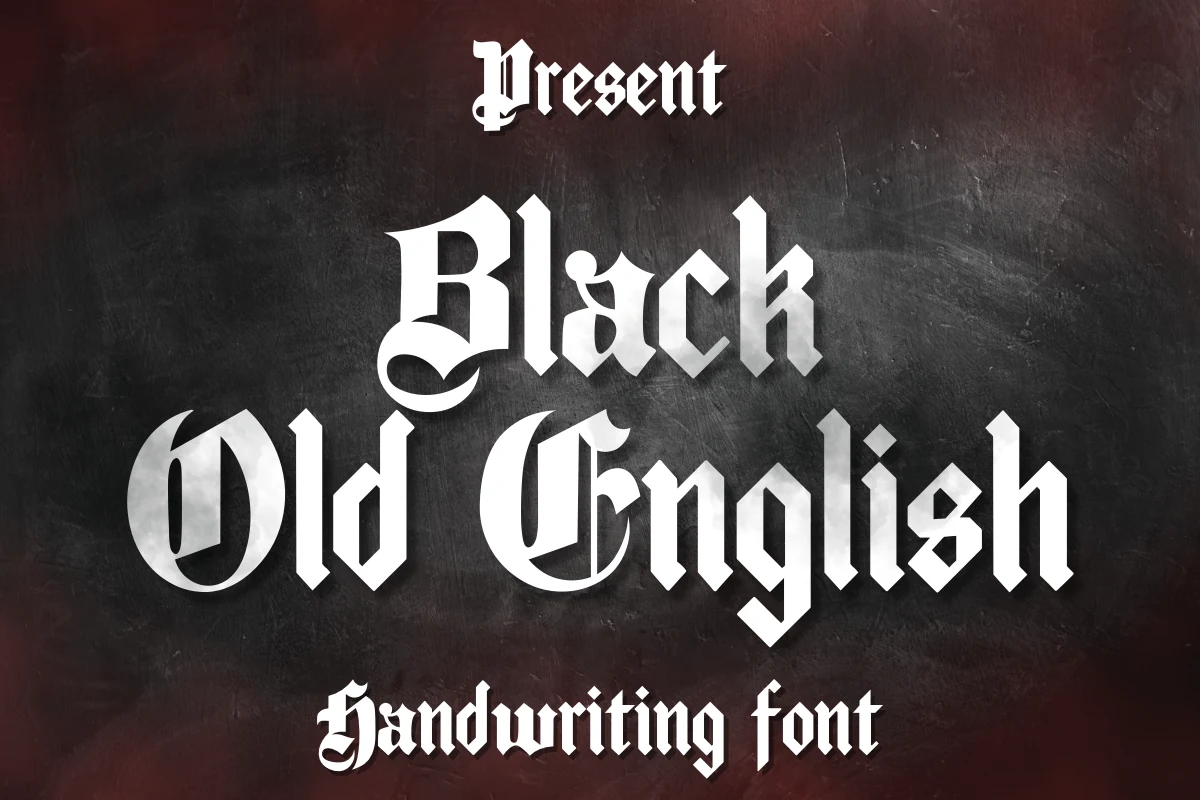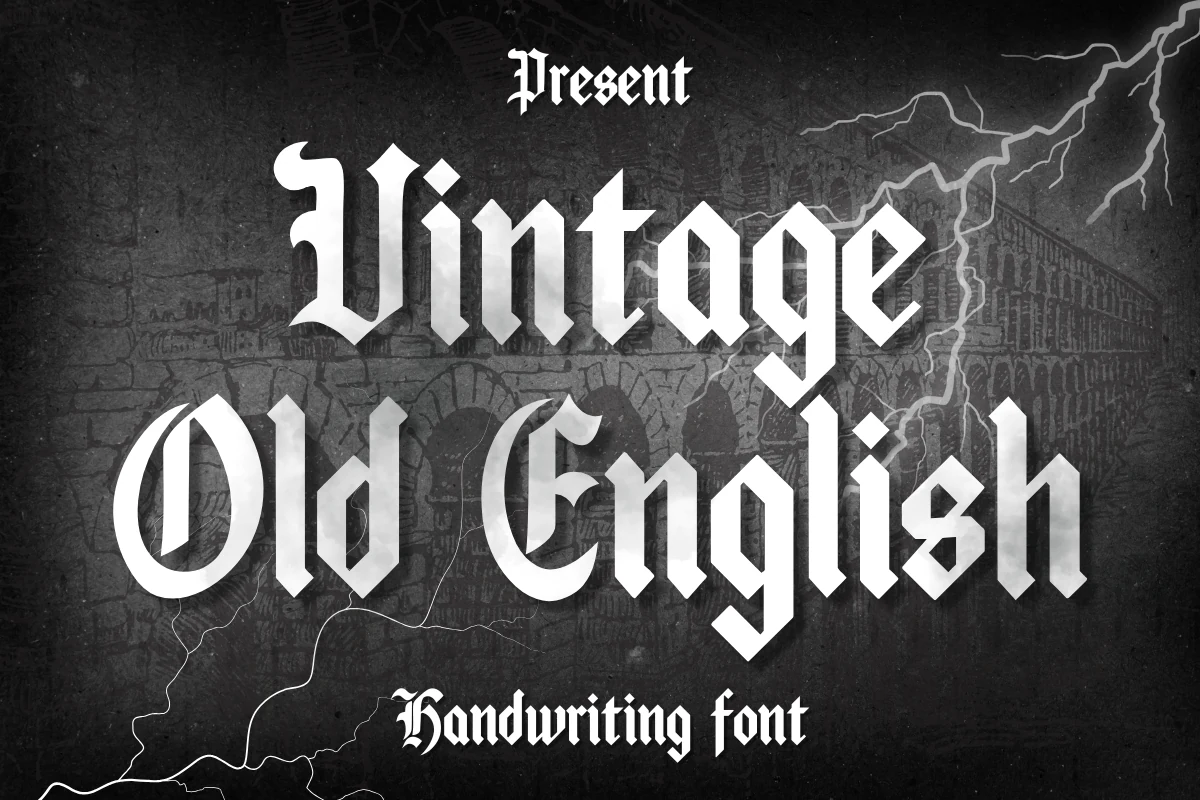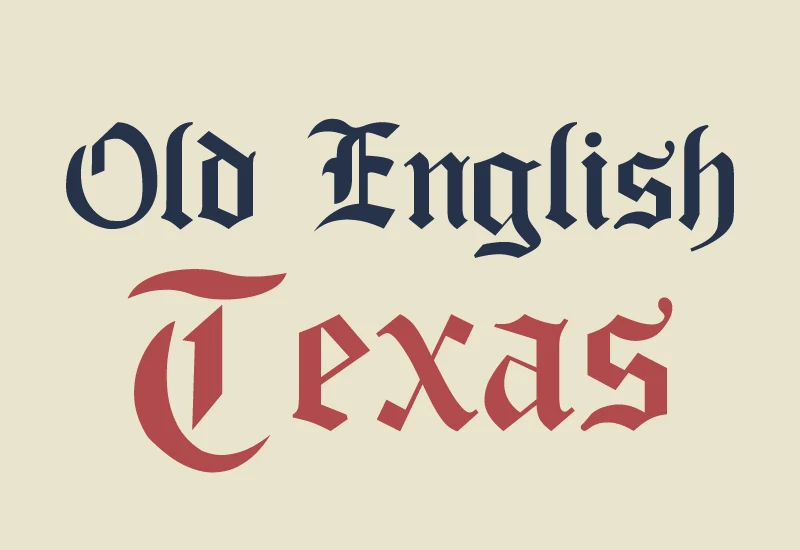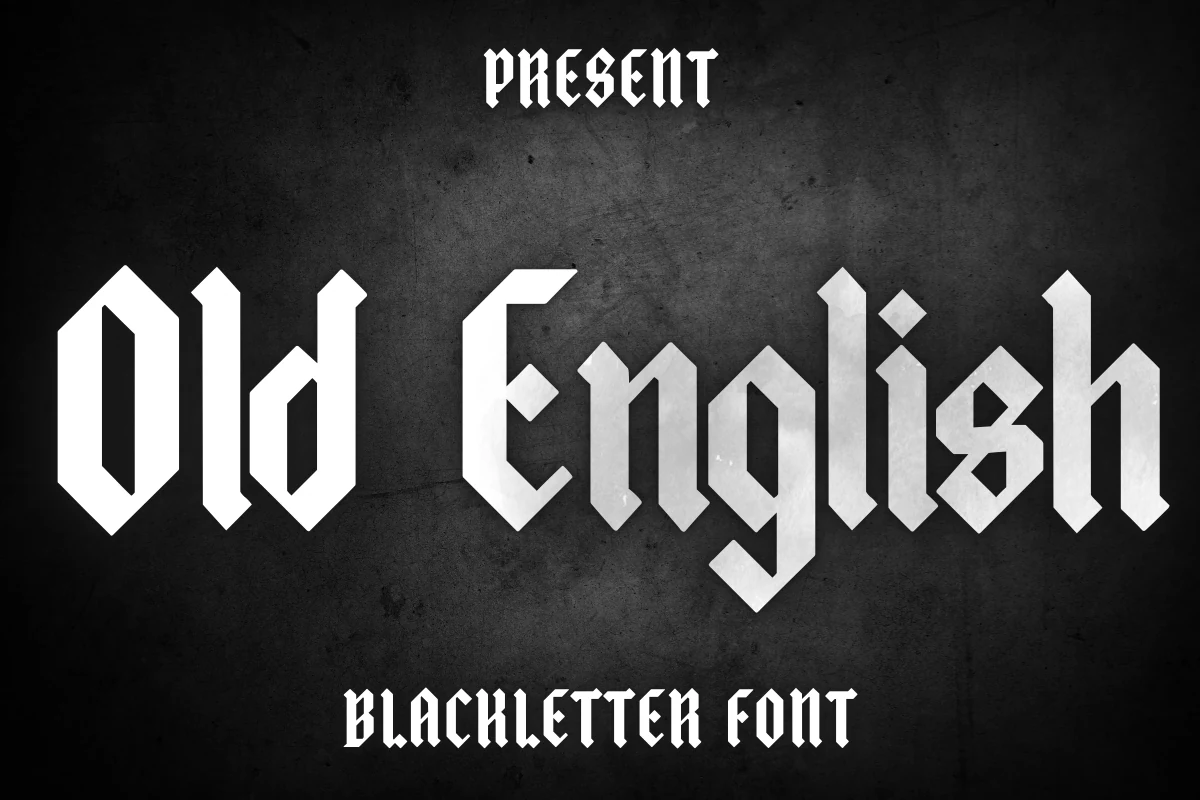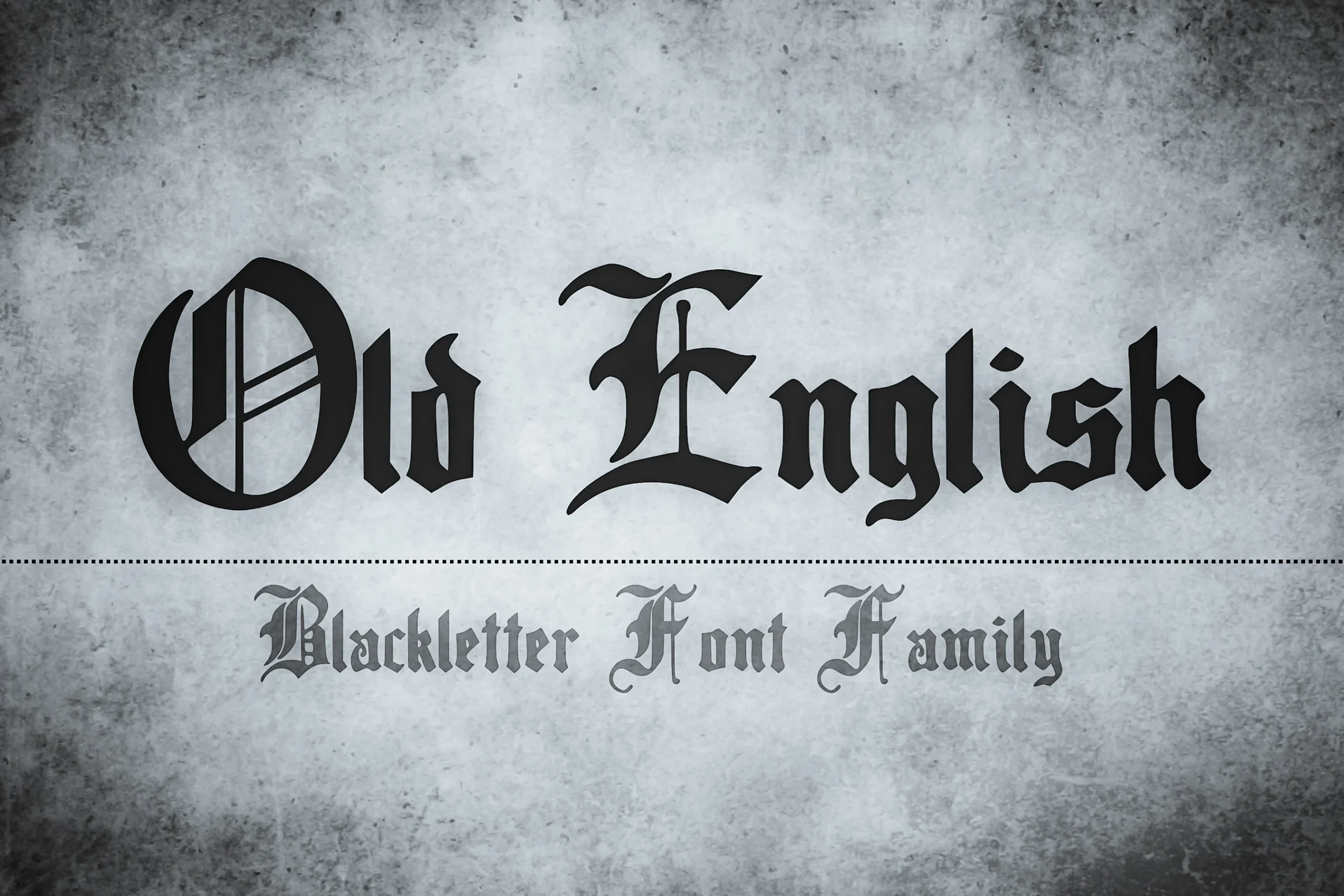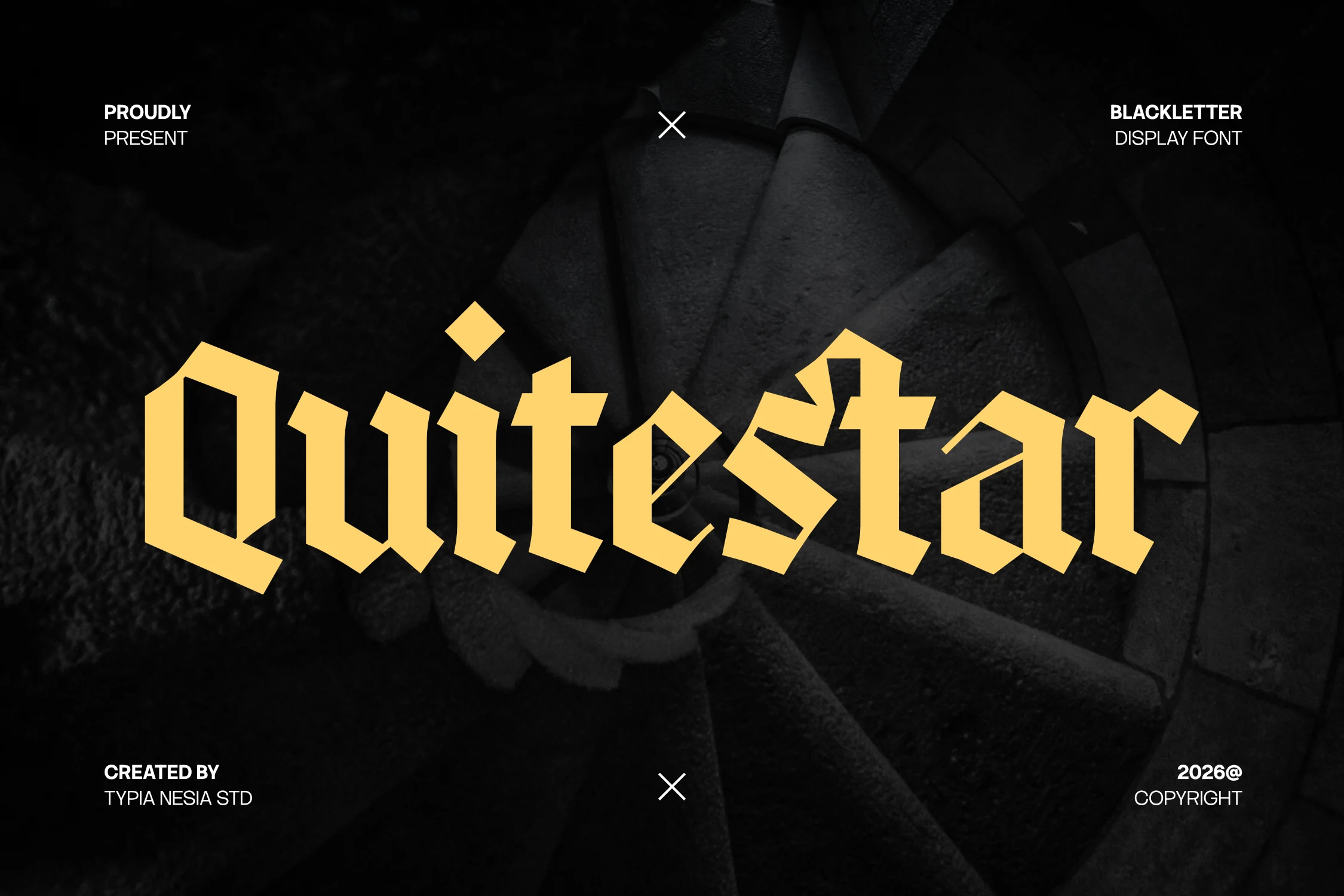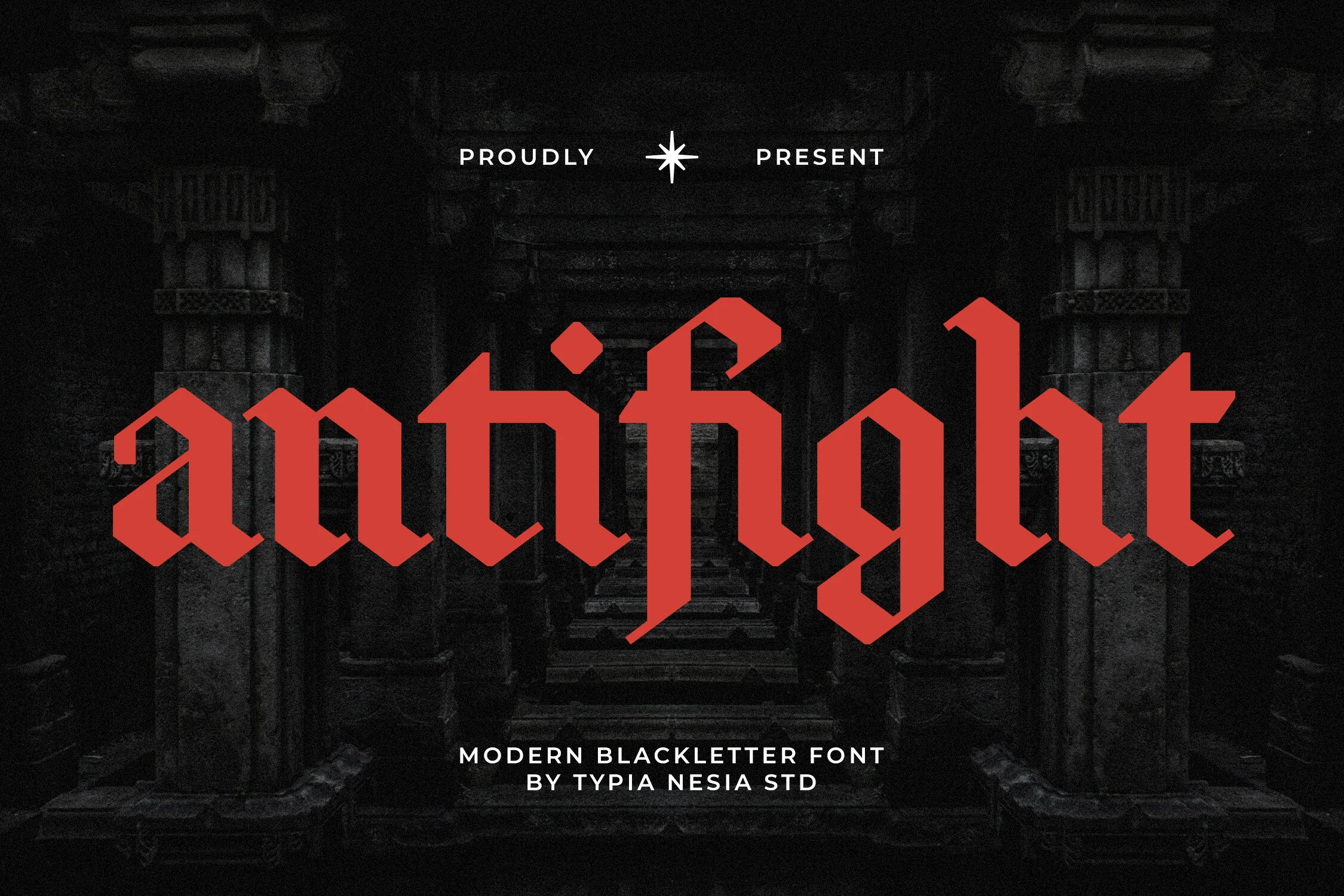
15 Best Old English Font Tattoo for Tattoo Designs in 2026
This tattoo-focused collection spans refined, bold, playful, and decorative directions suited to distinct visual roles. Use these letterforms for logos, branding, packaging, wedding stationery, social graphics, invitations, headlines, and other short-format designs where the construction sets the visual character.
Old English Font Tattoo
Old English Font Tattoo options in this group emphasize traditional condensed proportions, heavy verticals, diamond terminals, and formal historic silhouettes, making them more recognizable than the sharper modern alternatives.
Gothic Old English Font
Gothic Old English Font uses Fractura-style construction, exceptionally heavy vertical strokes, and diamond-shaped terminals for a dense Old English Font Tattoo treatment. The disconnected structure feels formal and authoritative, but intricate letterforms need generous scale to remain legible in a tattoo or headline.
Black Old English Font
Black Old English Font gives an Old English Font Tattoo a condensed, traditional silhouette through heavy vertical strokes and sharp triangular terminals. Its bold proportions suit short names, headers, and signage-sized words; complex angles make fine or extended text less dependable.
Vintage Old English Font
Vintage Old English Font uses diamond-shaped crossbars, pointed terminals, and compressed upright proportions to create a recognizable high-contrast display style. It works especially well for short tattoo names, headlines, cards, and social graphics, while its decorative structure is unsuitable for paragraphs.
Old English Texas Font
For an Old English Font Tattoo in a horizontal layout, Old English Texas Font offers narrow proportions, fractured vertical strokes, pointed terminals, and a traditional tone. Its decorative construction can fit limited width, though the lettering needs enough size for those details to separate cleanly.
Old English Font
Old English Font creates an Old English Font Tattoo with strong vertical stress, diamond terminals, and a heavy, authoritative word shape. It is most dependable for short phrases and headings, where the disconnected forms can read clearly without the demands of long-form text.
Old English Font
An Old English Font Tattoo with historical character can use Old English Font's condensed stems, angular terminals, and stylized flourishes. Those extending details add identity to a poster or themed tattoo, but they also reduce clarity when individual letterforms are reproduced at a small scale.
Modern Angular Blackletter
These modern angular blackletters rely on geometric construction, pointed terminals, tight spacing, and dense counters, creating a harder, more graphic presence than the traditional groups.
Quitestar Font
Quitestar Font forms an imposing block from geometric angles, diamond terminals, and minimal internal negative space. Its moderate contrast is less razor-sharp than several alternatives, but the heavy construction can still clog at small tattoo sizes, so reserve it for short wording and large display work.
Antifight Font
Antifight Font builds its industrial edge from tightly spaced, pointed structures and a compact vertical rhythm. The heavy, high-contrast letters suit a forceful title or logo, but adjacent forms may merge when reduced, making large tattoos and short wording the safer applications.
Scarlet Crown Font
Scarlet Crown Font is suited to a large Old English Font Tattoo when spiky, downward-pointing terminals should dominate the design. Its condensed proportions and high contrast create an archaic statement, while jagged edges and extra detail reduce clarity in small names or longer phrases.
Demon Old English Font
Demon Old English Font packs fractured forms, strong vertical emphasis, and spurred terminals into a dense gothic badge. It can carry a merch graphic or social post effectively, but the compact spacing favors large headings and short tattoo wording over fine lettering.
Black Valor Font
Black Valor Font combines broken-line construction, diamond terminals, and dense vertical rhythm into a compact sign-like character. Its moderate legibility makes it a practical choice for a logo or short tattoo phrase, but long wording will lose clarity as the forms accumulate.
Bold Branding Blackletter
Branding-focused blackletters prioritize a strong display silhouette, interlocking forms, chiseled strokes, or rough surfaces, giving logos and large tattoo lettering more personality than small-text clarity.
Kingching Font
Kingching Font compresses high-contrast, fractured geometry into a forceful upright silhouette. Its sharp angular strokes and geometric terminals hold crisp impact at large sizes, while the condensed density makes it better for short tattoo wording, logos, and posters than small text.